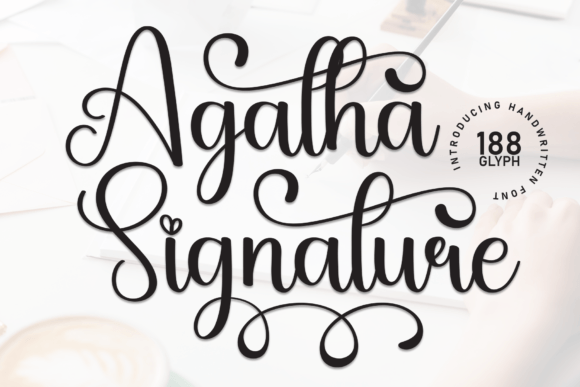
Unleash the Art of Handwriting with Agatha Signature Font
There’s something special about putting pen to paper, isn’t there? The way the words flow, the curves and strokes that bring a design to life – it’s a moment of pure creative joy. But, let’s be honest, not everyone has the time or skill to create custom handwriting for their projects. That’s where Agatha Signature Font comes in – a modern and beautiful handwritten font that captures the essence of elegant, handwritten style.
Designed to add a touch of sophistication and warmth to your designs, the Agatha Signature Font is perfect for invitations, cards, and any creative endeavor that requires a personal and charming touch. Whether you’re a designer looking for a unique font to elevate your work or a small business owner seeking to add a personal touch to your branding, the Agatha Signature Font is a valuable addition to your toolkit.
Agatha Signature Font Key Features
- Unique Characteristics: Agatha Signature Font boasts a unique blend of elegant and sophisticated letterforms, with subtle flair and flair details that make it perfect for creating memorable signatures and logos.
- Style Variations: The font includes 4 different styles: Regular, Italic, Bold, and Bold Italic, providing users with a range of options to suit their design needs.
- Language Support: Agatha Signature Font supports a wide range of languages, including Latin, Cyrillic, and Greek alphabets, making it a versatile choice for designers and typographers.
Designer Review: Agatha Signature Font
After working with Agatha Signature Font, I have a mix of thoughts about this elegant script font.
The Agatha Signature Font has some great qualities that make it a good choice for designers. Some of its strengths include:
- Beautiful, flowing connections between letters that create a sense of fluidity.
- The subtle flair at the end of each letter adds a touch of sophistication and elegance.
- It’s a great font for creating invitations, logos, or any design where you want to add a personal touch.
While Agatha Signature Font has its strengths, it also has some limitations:
- It may not be the best choice for body text or large blocks of text due to its script style.
- The font may be difficult to read for those with vision impairments due to its ornate design.
- It’s not suitable for digital signage or any application where legibility is a top priority.
Overall, Agatha Signature Font is a beautiful and elegant script font that’s perfect for designers who want to add a touch of sophistication to their designs. However, it’s not a one-size-fits-all solution and should be used judiciously based on the design’s requirements.
Getting the Most Out of Agatha Signature Font
To get the most out of Agatha Signature Font, try using it in combination with bold or italic text styles to create visual interest. You can also experiment with different font sizes and colors to create a unique visual identity.
Agatha Signature Font is commonly used in creative and professional contexts, such as:
- Logo design
- Brand identity
- Stationery and business cards
Alternatives to Agatha Signature Font
Playfair Display is an elegant and luxurious script font. It is ideal for use in high-end branding, invitations, and formal events. It has a classic and sophisticated feel that is reminiscent of 19th-century typography.
Compared to Agatha Signature Font, Playfair Display has a more refined and polished look. While Agatha Signature Font has a more modern feel, Playfair Display has a timeless elegance that makes it suitable for a wide range of applications.